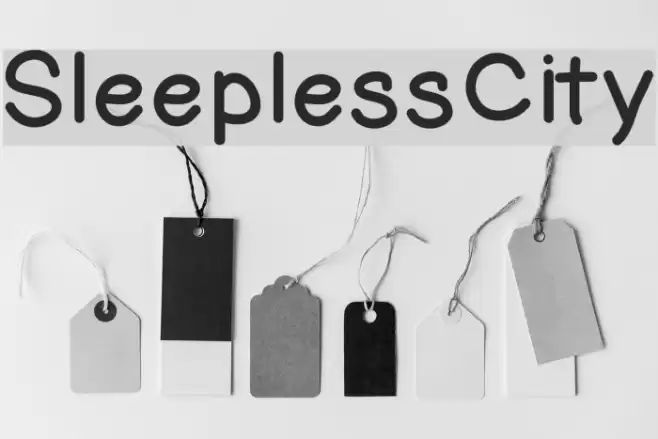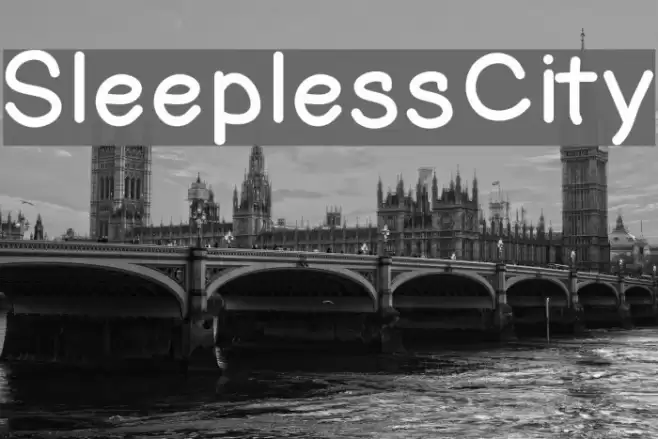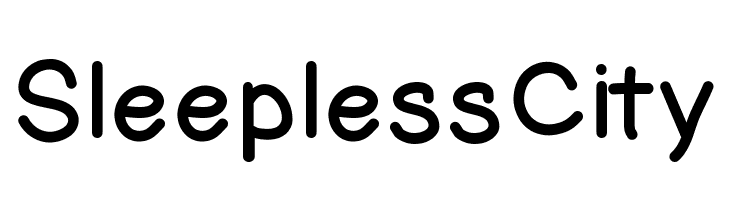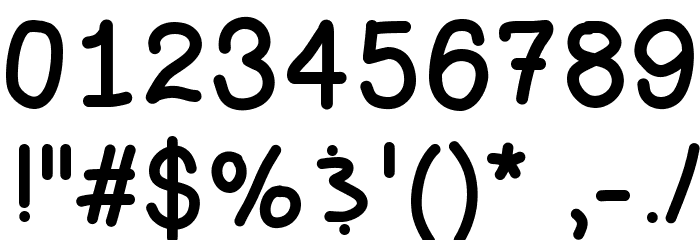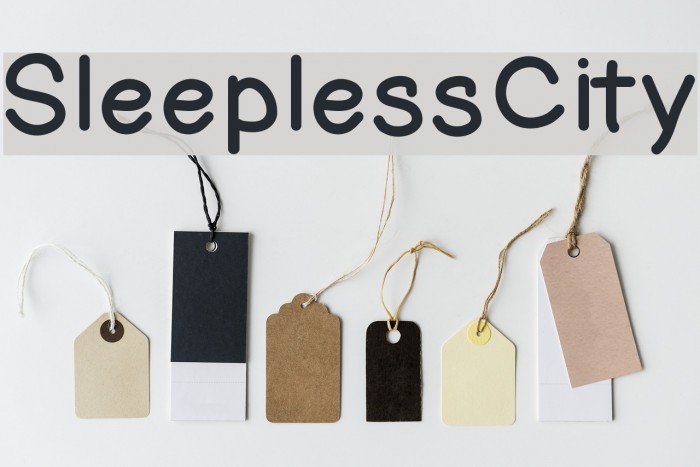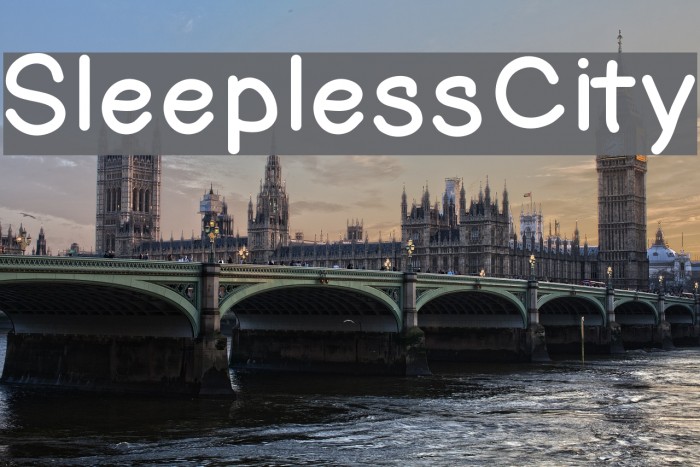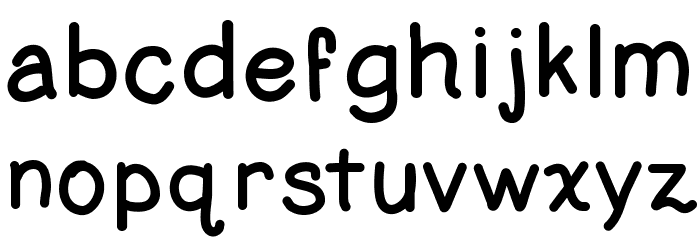
SleeplessCity Font
SleeplessCity Description
This playful and rounded font features a handwritten style that exudes a casual and friendly vibe. The characters are bold and slightly irregular, giving them a whimsical and approachable appearance. The uppercase and lowercase letters maintain a consistent flow, with smooth curves and a slight tilt that adds to the informal charm. Numbers and special characters are equally rounded, complementing the overall aesthetic. The font's design is perfect for projects that require a touch of personality and warmth, making it ideal for creative and informal applications.
A playful, rounded handwritten font with a casual and friendly vibe from Uncategorized fonts.
- Proposed Projects: Ideal for children's books, greeting cards, playful branding, and casual invitations.
- Overall Style: Playful
- Use Case: Headlines, Logos, Informal Text